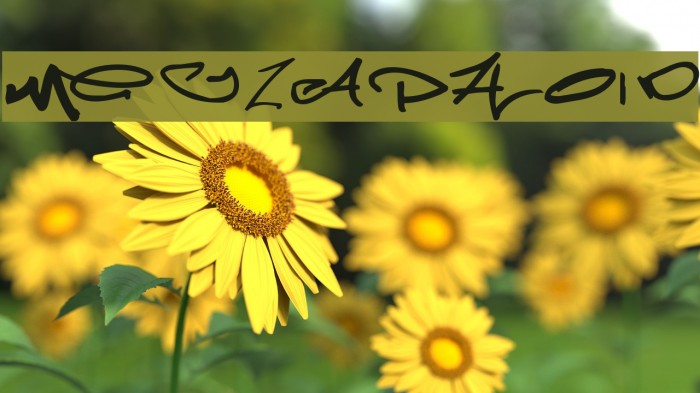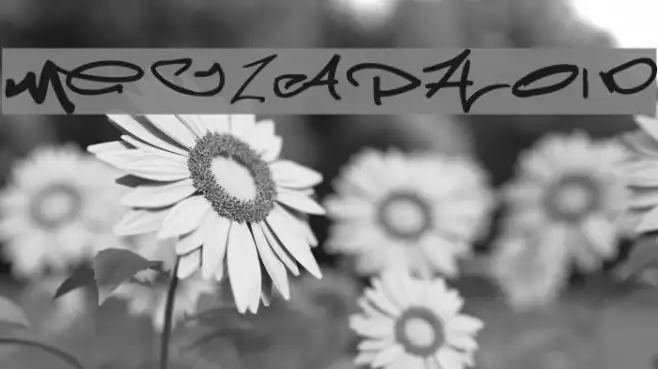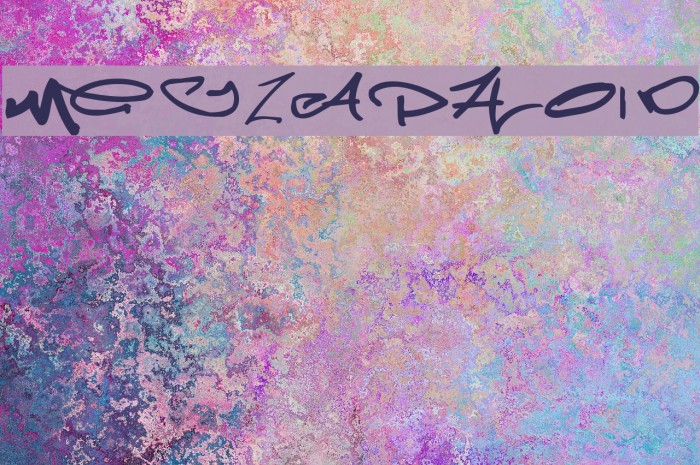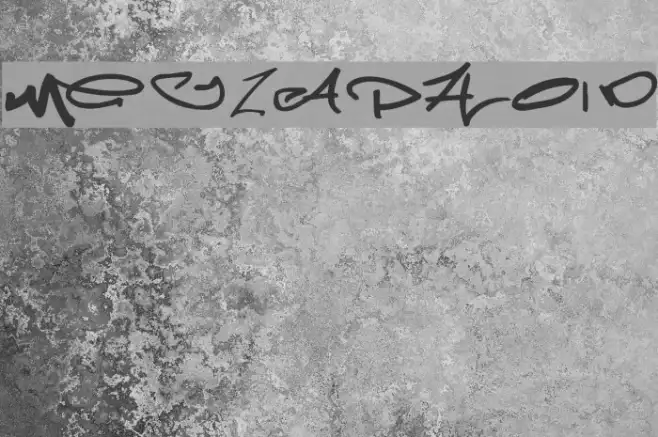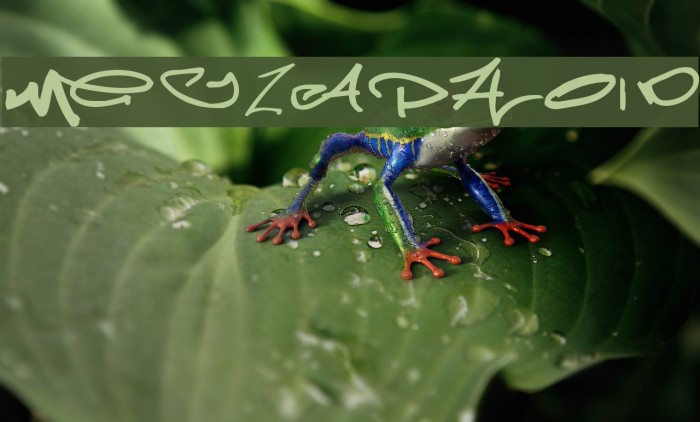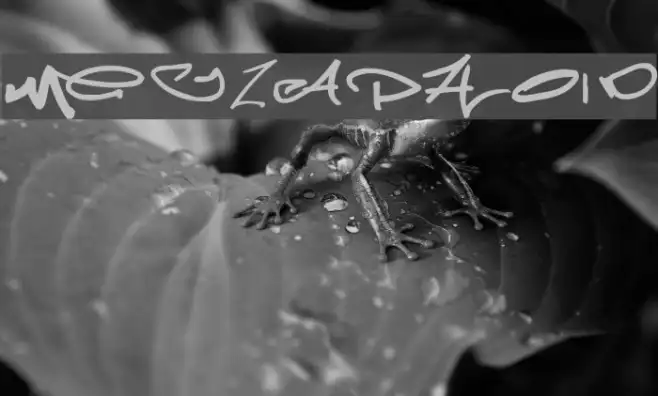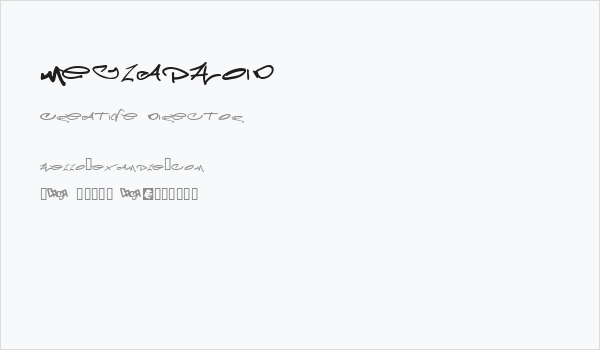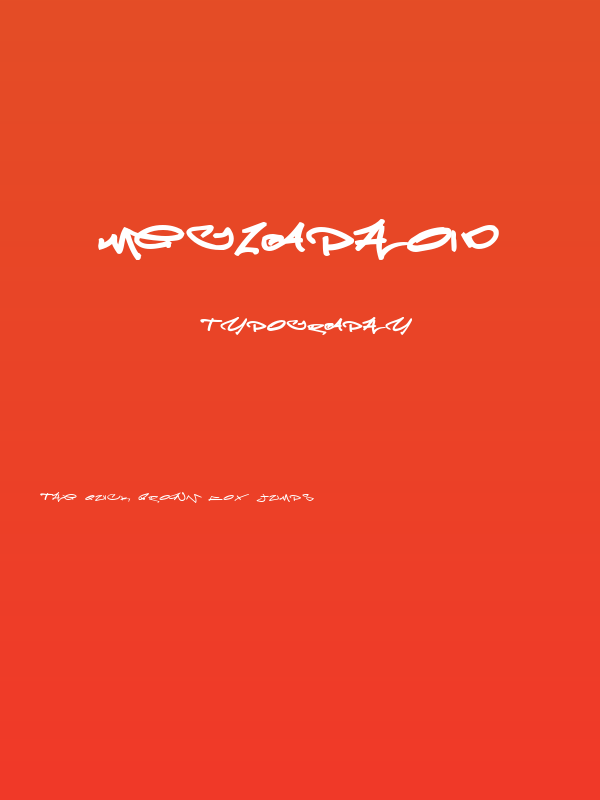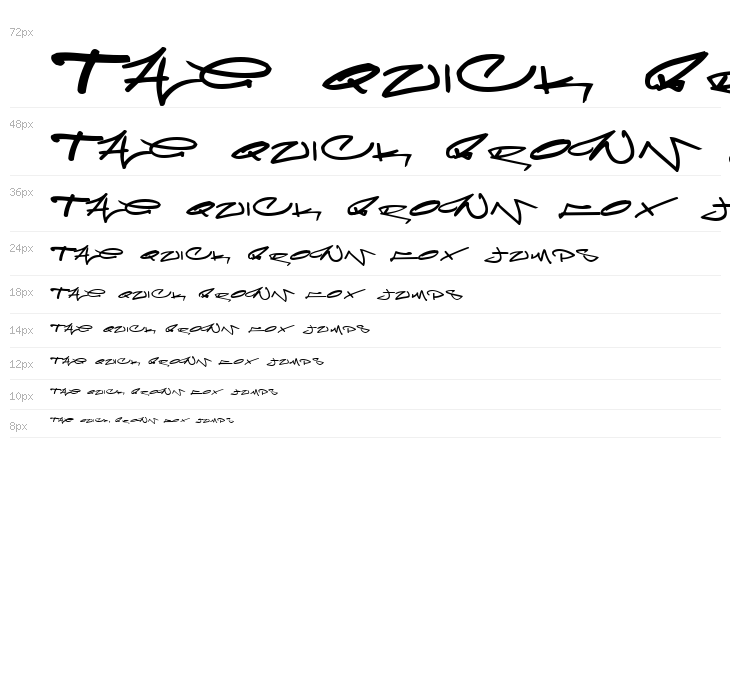
Meglaphoid Font
Meglaphoid Description
This font features a highly stylized and artistic design, characterized by its bold, sweeping strokes and dynamic, graffiti-like appearance. The letters are interconnected with fluid, curving lines that create a sense of movement and energy. The uppercase and lowercase letters maintain a consistent style, with exaggerated curves and angles that give the font a unique, edgy look. The numbers and special characters follow the same artistic theme, making the font suitable for creative and unconventional projects. The overall design is reminiscent of street art, making it ideal for projects that require a bold and expressive typeface.
| Overall Style | Modern, Urban |
| Proposed Projects | Ideal for street art designs, urban-themed posters, music album covers, and edgy branding projects. |